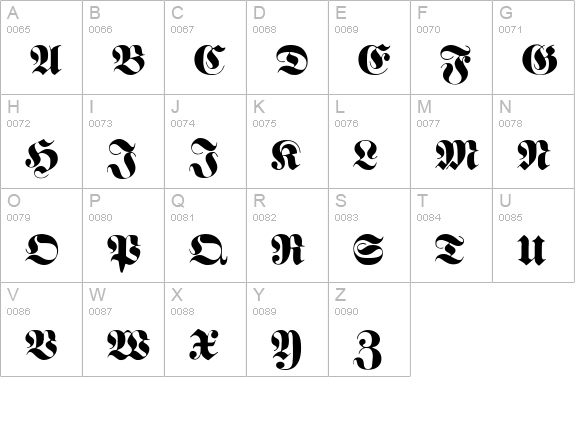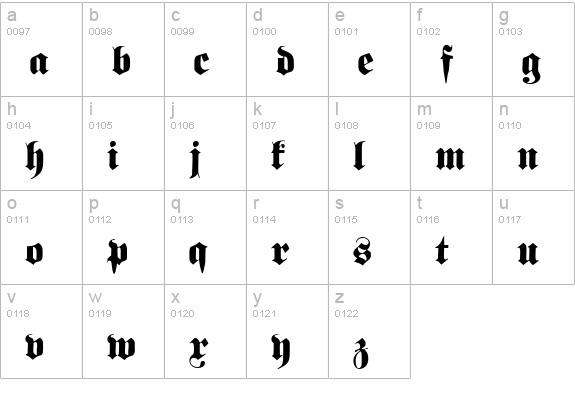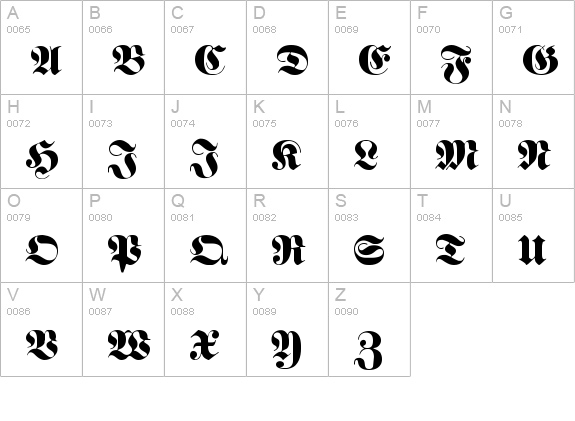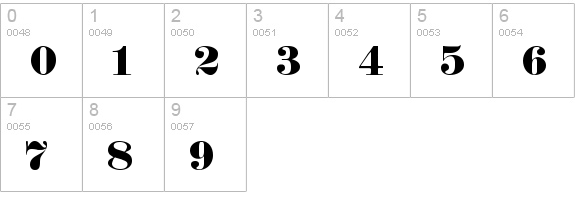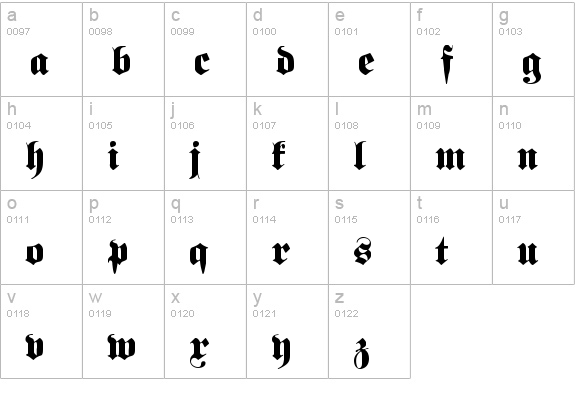
Proclamate Heavy Heavy is a heavy, high-impact variant in the Proclamate typeface family \xE2\x80\x94 well suited to high-impact headlines, posters, and display advertising.
Proclamate Heavy Heavy font is a bold and impactful typeface that commands attention with its strong and sturdy letterforms. The thick strokes and sharp angles of this font exude power and confidence, making it ideal for headlines, titles, and branding projects that require a bold statement. Despite its weighty appearance, Proclamate Heavy Heavy remains highly legible and versatile, making it suitable for a wide range of design applications. Best of all, Proclamate Heavy Heavy font is free to download at FontsMarket.com. This means you can easily access this striking typeface and incorporate it into your projects without any cost. Whether you're a professional designer looking to add a bold touch to your work or a hobbyist seeking a powerful font for personal projects, Proclamate Heavy Heavy is a fantastic choice that won't break the bank. Download it today and elevate your designs with this impactful typeface.